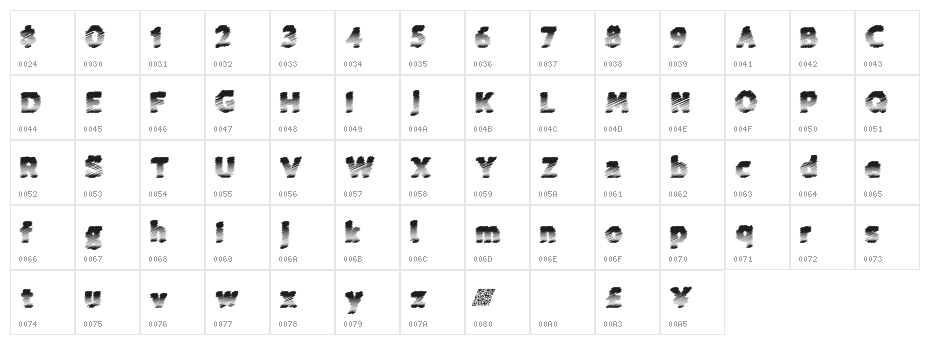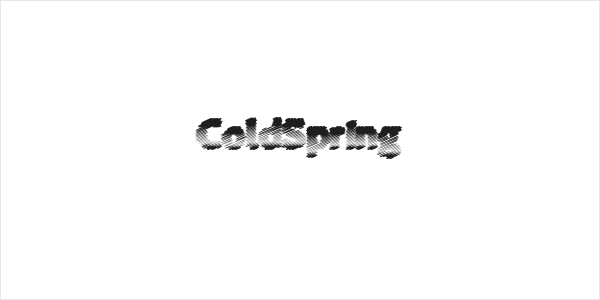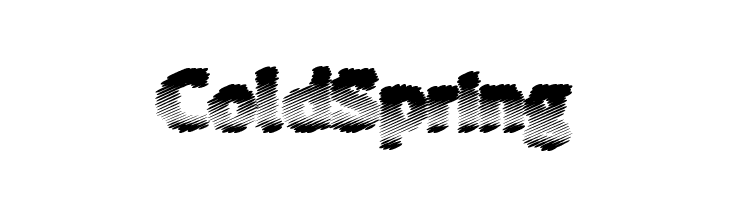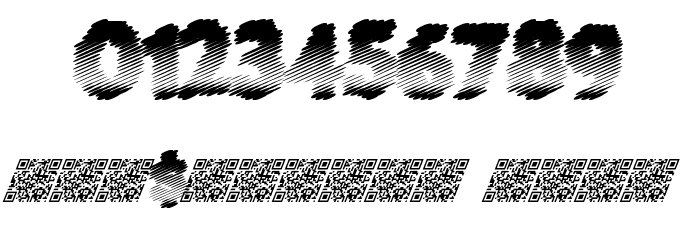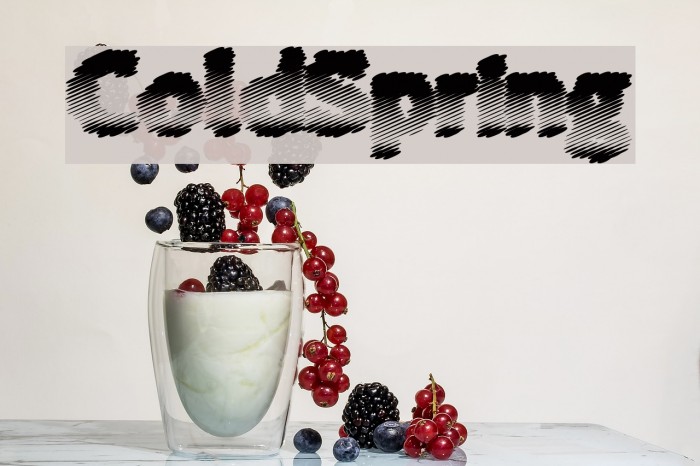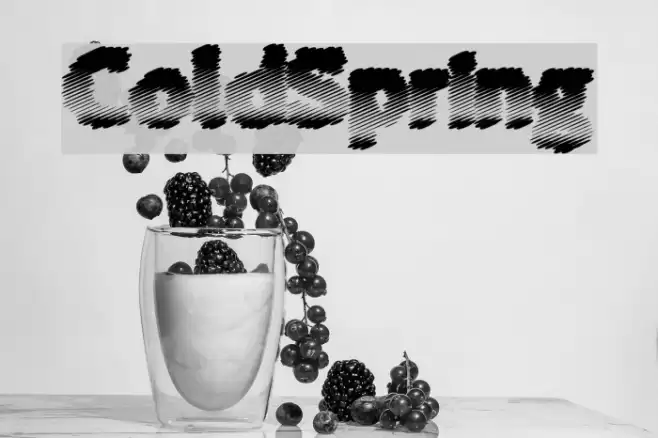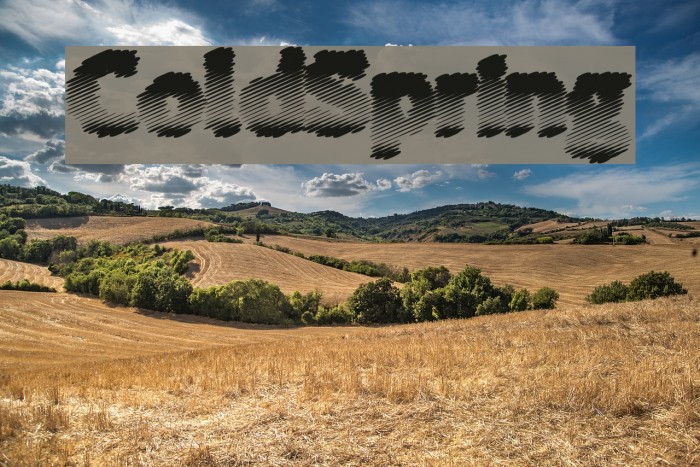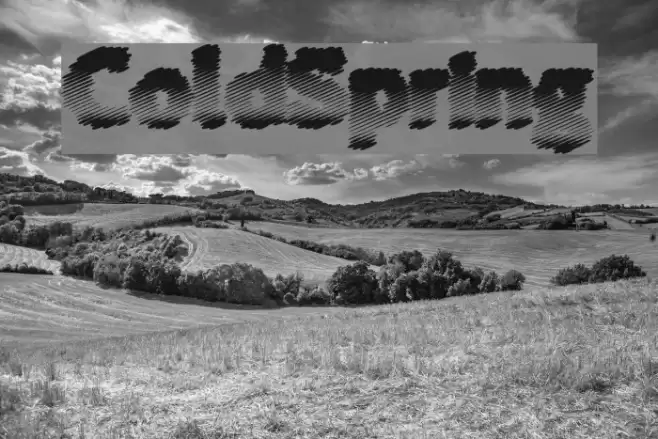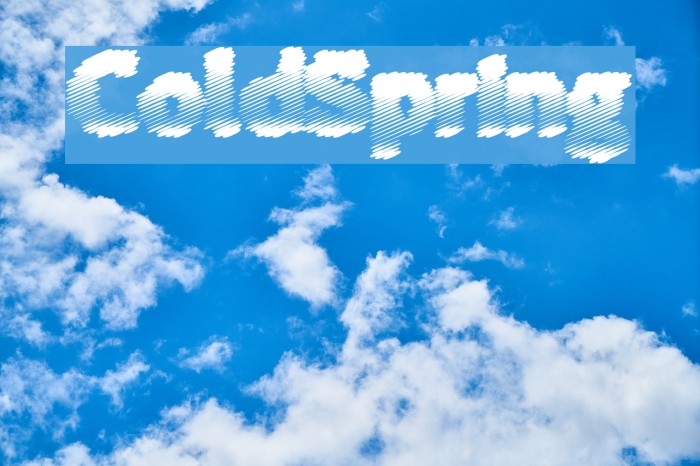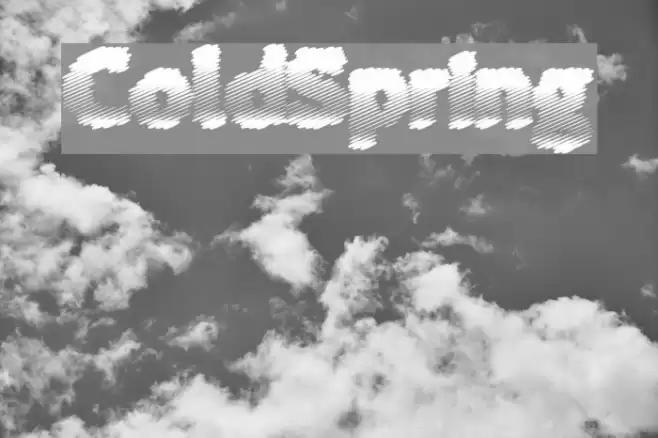
ColdSpring Font
ColdSpring Description
This font features a unique, bold design with a diagonal line pattern running through each character, creating a dynamic, textured appearance. The uppercase and lowercase letters maintain a consistent style, with thick strokes and a slightly condensed form. The numbers and special characters follow the same design principles, ensuring uniformity across all glyphs. The font's distinct style makes it stand out, offering a modern twist on traditional bold fonts. Its high contrast and textured look make it ideal for eye-catching designs.
| Proposed Projects | Ideal for posters, logos, and branding materials where a bold statement is needed. |